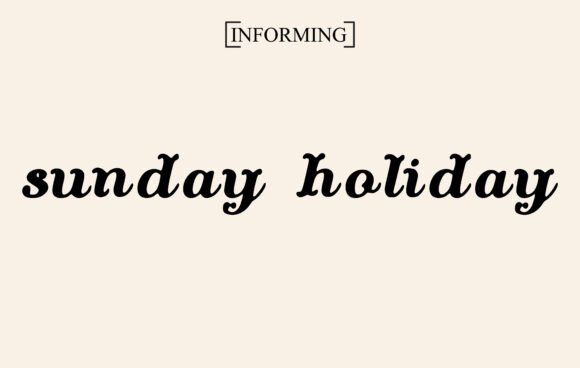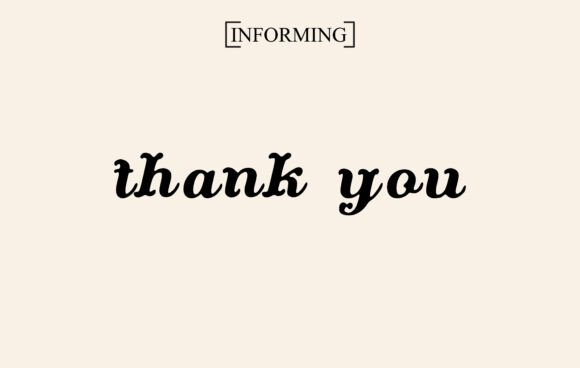
Introducing Glorythread Font: Elevate Your Creative Projects with Style
In the world of design, typography plays a crucial role in conveying messages, expressing emotions, and creating a lasting impression. A well-crafted font can elevate your creative projects from ordinary to extraordinary. This is where Glorythread Font comes into play – an expertly designed typeface that is poised to become a favorite among designers and crafters alike.
What Makes Glorythread Font Stand Out?
Glorythread Font is meticulously crafted to offer the perfect blend of legibility, versatility, and aesthetic appeal. Its design ensures that it looks great whether used as a title or body text, making it an incredibly versatile addition to your font collection.
Key Features of Glorythread Font:
- Legibility: One of the standout features of Glorythread Font is its exceptional legibility. This ensures that your message is conveyed clearly, whether it’s used in a magazine headline, a t-shirt design, or a wedding invitation.
- Versatility: Glorythread Font is designed to excel in various applications. From the bold statements of magazine headlines and branding to the more personal touches of wedding invitations and greeting cards, this font adapts seamlessly.
- Aesthetic Appeal: With its unique design elements, Glorythread Font adds a touch of elegance and sophistication to any project. Its appearance is sure to capture attention and leave a lasting impression.
Applications of Glorythread Font
The versatility of Glorythread Font makes it suitable for a wide range of design projects. Here are some of the areas where this font truly shines:
- Magazine Headlines: Create striking headlines that grab attention with Glorythread Font. Its bold and clear design ensures that your magazine stands out on the newsstand.
- T-Shirts and Apparel: Add a professional touch to your t-shirt designs with Glorythread Font. Its legibility and style make it perfect for quotes, slogans, and branding.
- Social Media Graphics: Elevate your social media presence with eye-catching graphics featuring Glorythread Font. It’s ideal for creating engaging posts, stories, and banners.
- Branding: Establish a strong brand identity with Glorythread Font. Use it in your logos, marketing materials, and website to create a cohesive and professional look.
- Wedding Invitations and Cards: Add a touch of elegance to your wedding invitations, greeting cards, and other stationery with Glorythread Font. Its sophisticated design is sure to impress.
Why Choose Glorythread Font?
In a sea of fonts, Glorythread Font stands out for several reasons:
- Unique Design: Its expertly crafted design elements make it a unique addition to any font collection.
- Time-Saving: With Glorythread Font, you can achieve professional-looking results without spending hours on design. Its legibility and aesthetic appeal ensure that your projects look great from the start.
- Support for Creative Freedom: Glorythread Font is designed to be a tool for your creativity. Whether you’re a professional designer or a DIY enthusiast, this font gives you the flexibility to bring your ideas to life.
Glorythread Font is more than just a typeface – it’s a tool for creative expression. Its combination of legibility, versatility, and aesthetic appeal makes it an invaluable asset for designers and crafters looking to elevate their projects. Whether you’re working on a magazine headline, a t-shirt design, or a wedding invitation, Glorythread Font is poised to become your go-to choice. Embrace the potential of Glorythread Font and take your creative ideas to new heights.